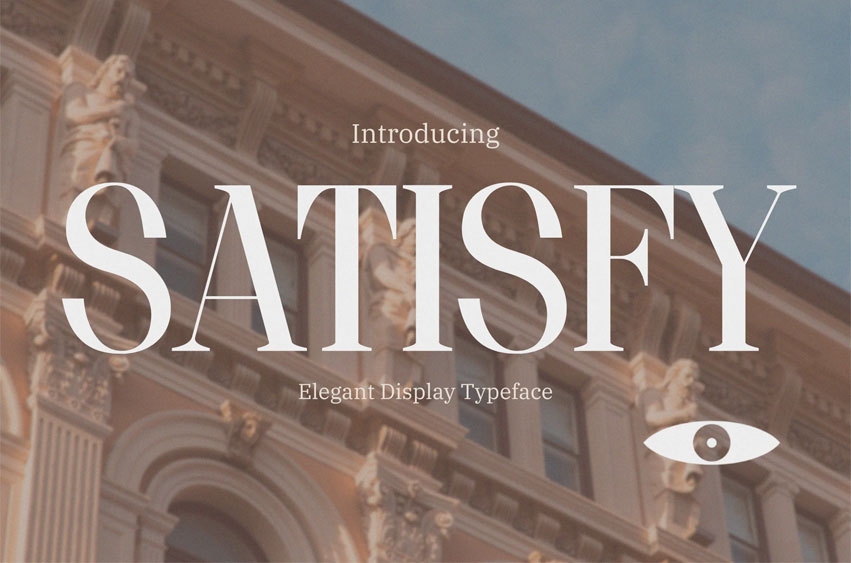
Satisfy Elegant Font
Satisfy Elegant Font is a refined display typeface crafted for designers seeking a long-tail editorial serif that blends clean contrast, graceful proportions, and a cinematic visual tone. Its tall structure, elegant curves, and expressive terminals create a sophisticated vibe perfect for fashion-driven layouts, magazine spreads, and brand-heavy storytelling.
This typeface carries a polished, modern, editorial energy—with structured serifs, gentle contrast, and balanced spacing that help headlines feel confident yet inviting. From architectural posters to boutique brand identities, its letterforms feel visually grounded, stylish, and effortlessly readable.
Tailored for branding, posters, editorial layouts, product packaging, digital magazines, and social media, SATISFY elevates designs that need a calm yet commanding visual voice. Its structured rhythm supports creators aiming for clarity, elegance, and emotional depth—making it ideal for businesses that want identity materials that feel intentional, artistic, and modern.
Use SATISFY when you want your design to stand out with quiet confidence, giving your audience a sense of trust, sophistication, and visual harmony.
Key Features
• Editorial-Ready Letterforms Created to enhance headlines, magazine titles, and long-form storytelling with a smooth, structured flow.
• Elegant Serif Structure Sharp, expressive serifs with controlled contrast bring a high-end visual character—ideal for brand marks and hero typography.
• Versatile for Branding Works beautifully across digital and print platforms, helping designers maintain aesthetic consistency.
• Strong Visual Presence Perfect for posters, brochures, packaging, and product displays that need a modern, polished appeal.